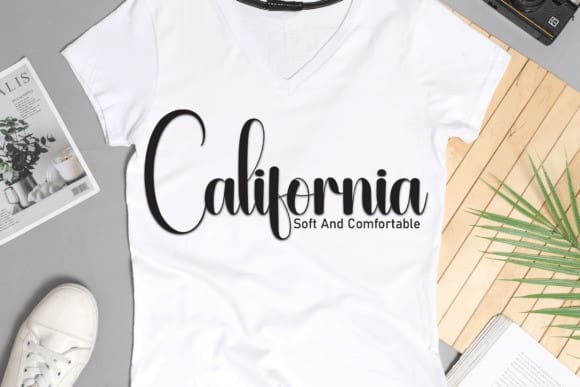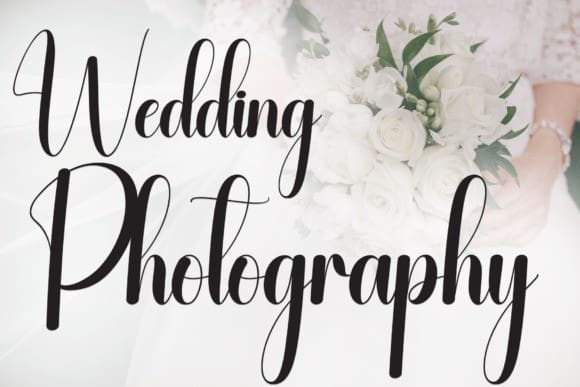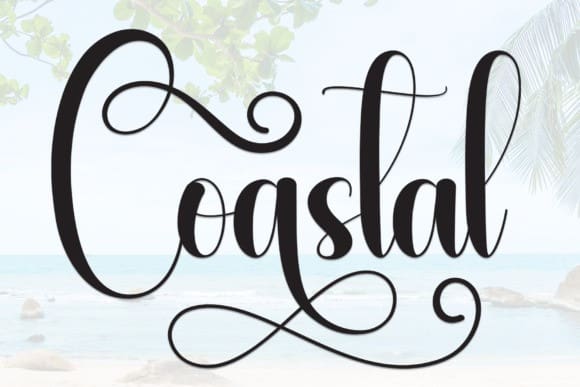
Coastal Script Font
Coastal Script Font, is a delightful script and handwritten typeface that captures the essence of coastal living. With its flowing lines and relaxed vibe, it evokes the beauty and serenity of the seaside. Perfect for beach-themed designs, coastal-inspired branding, and projects that embody a laid-back and carefree coastal lifestyle.